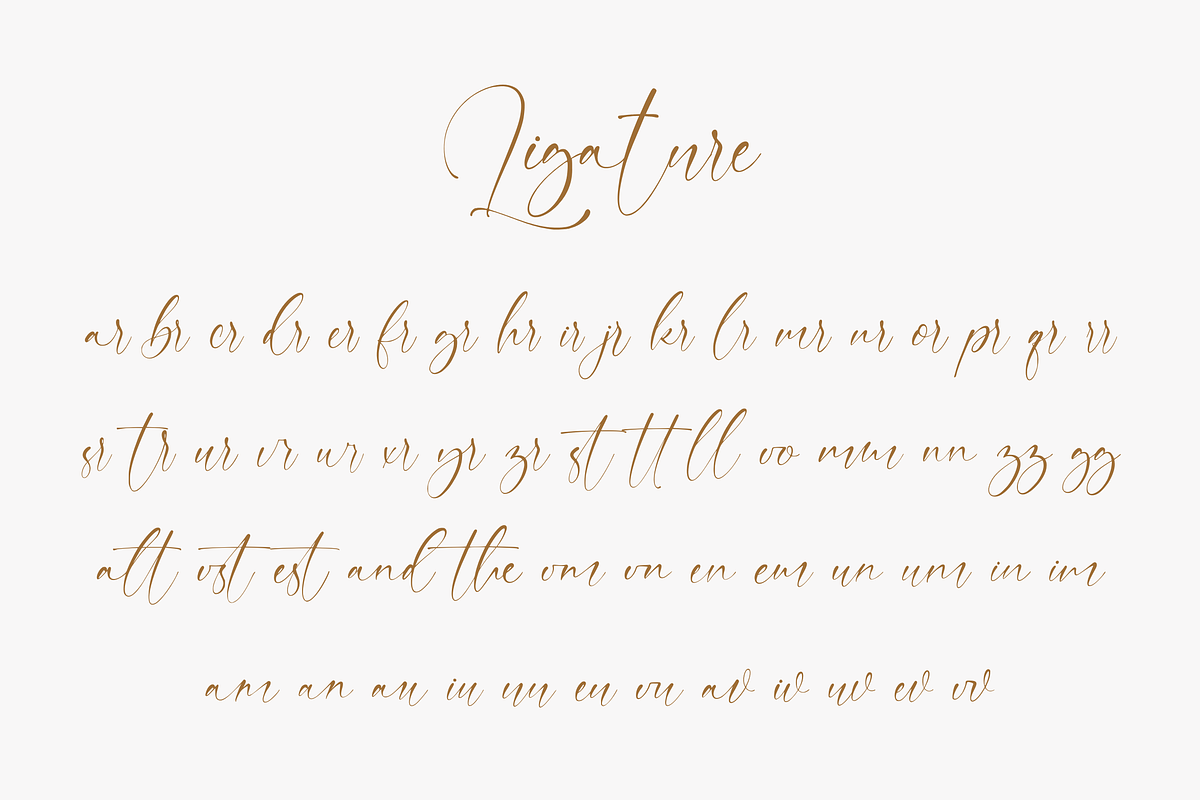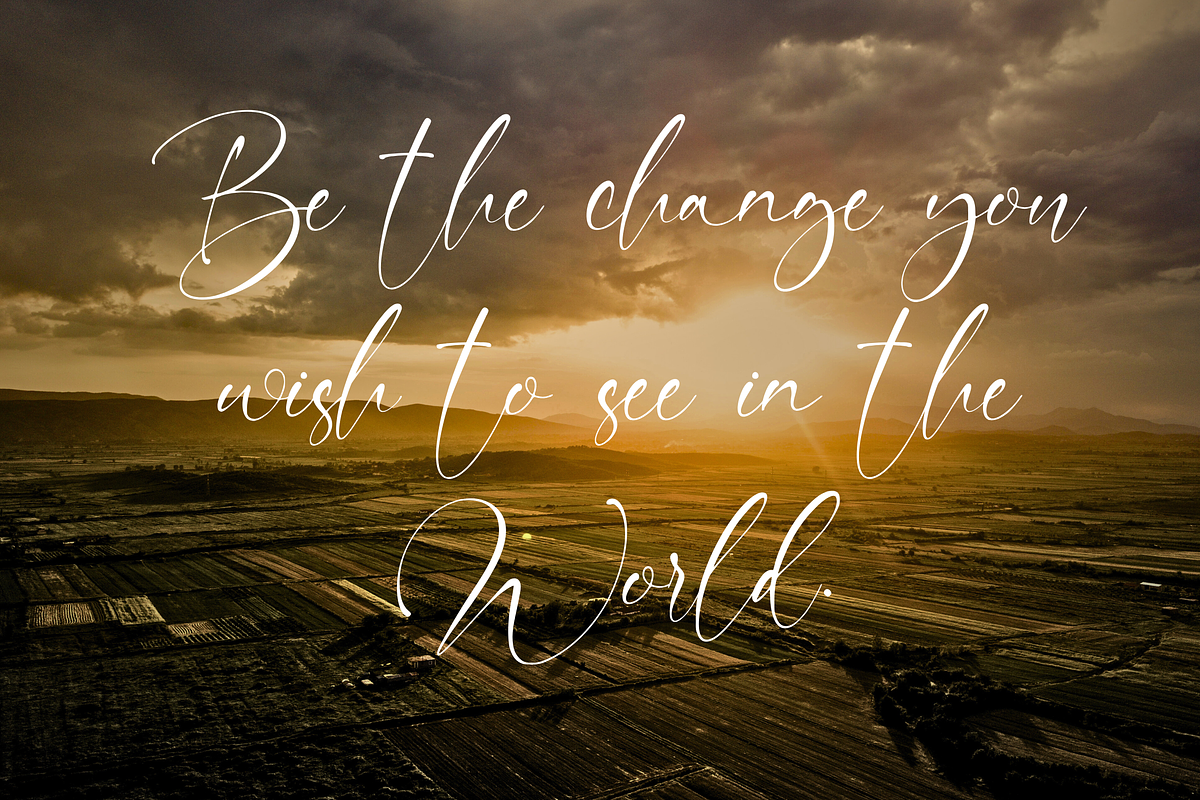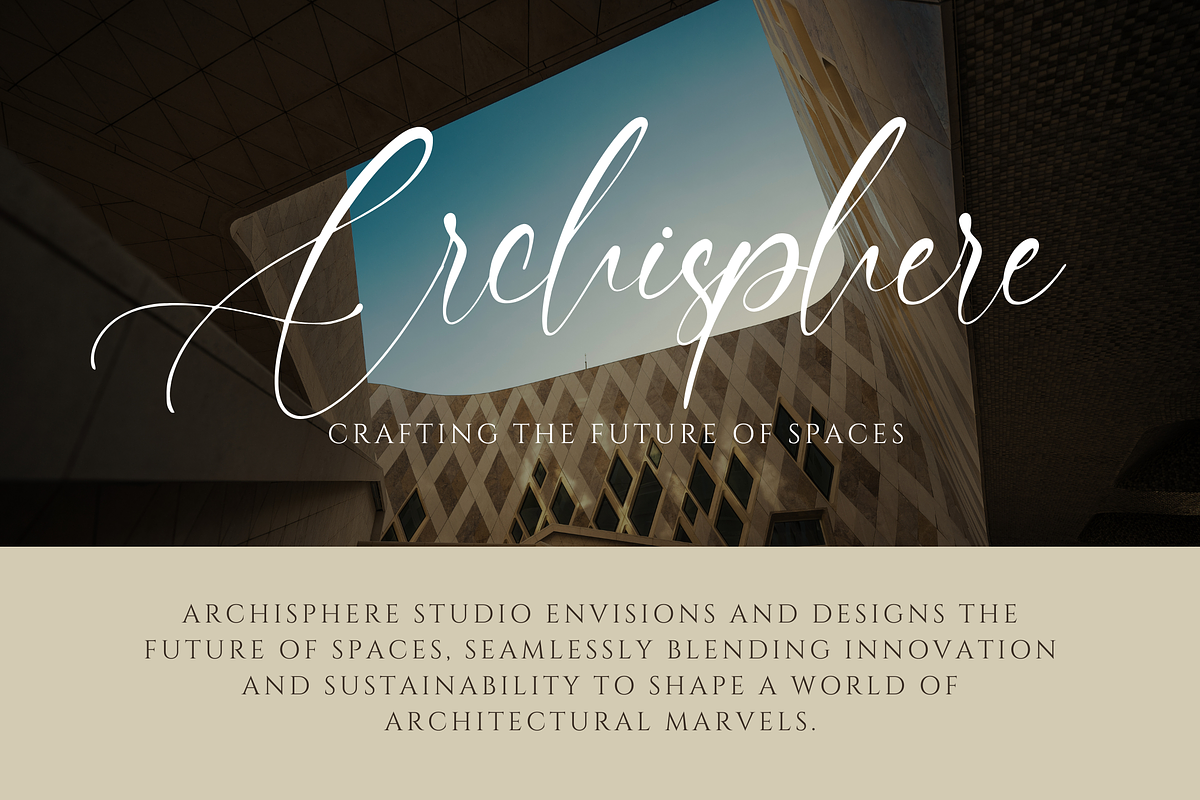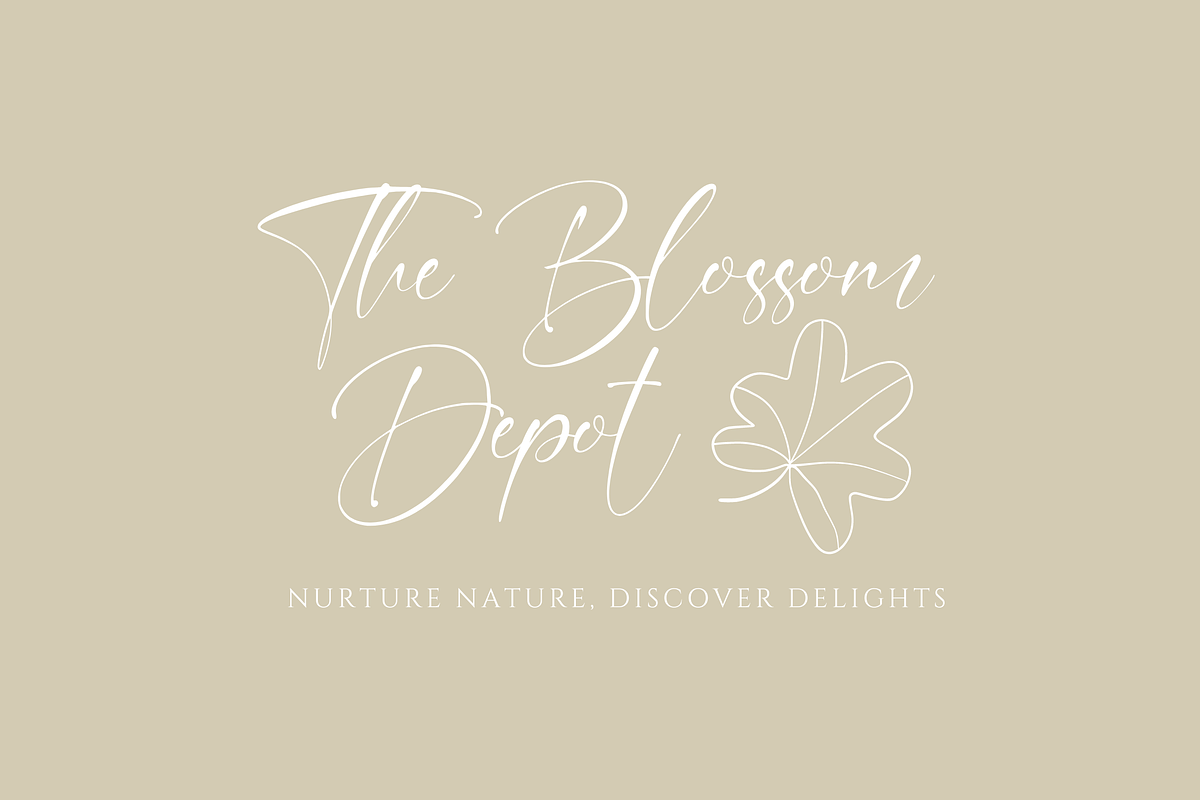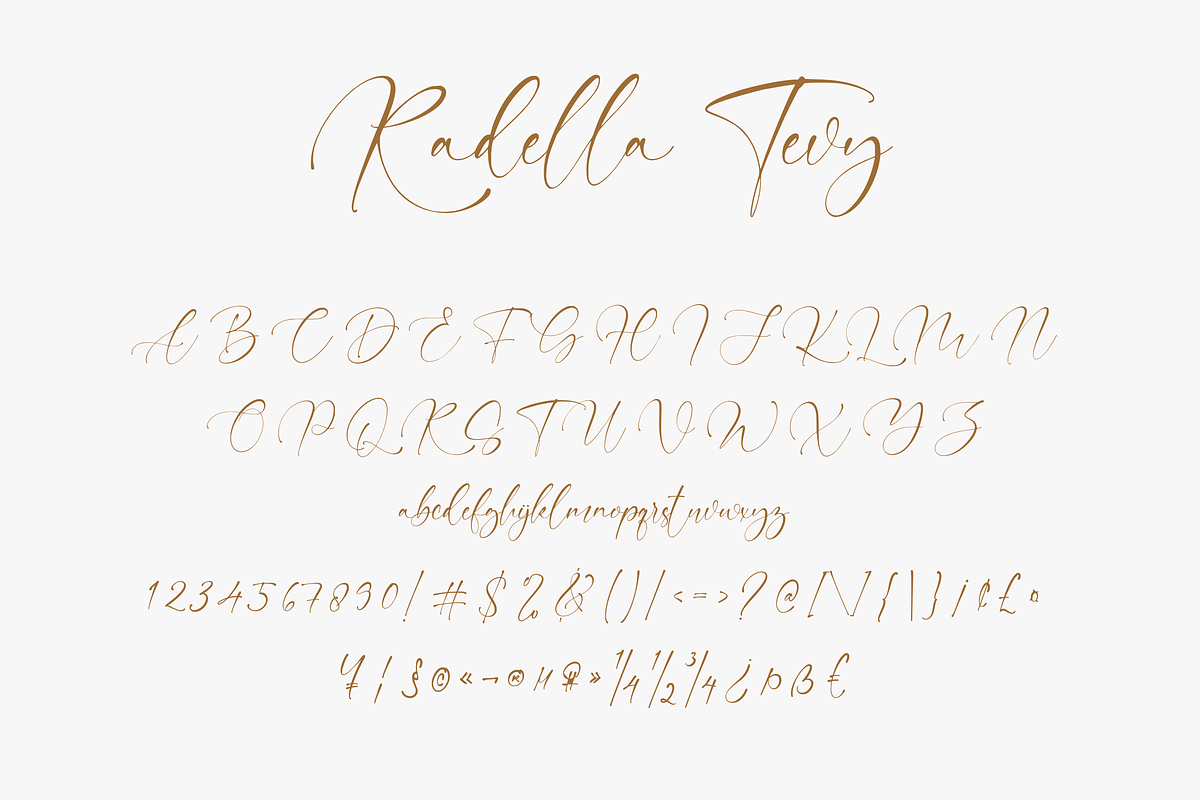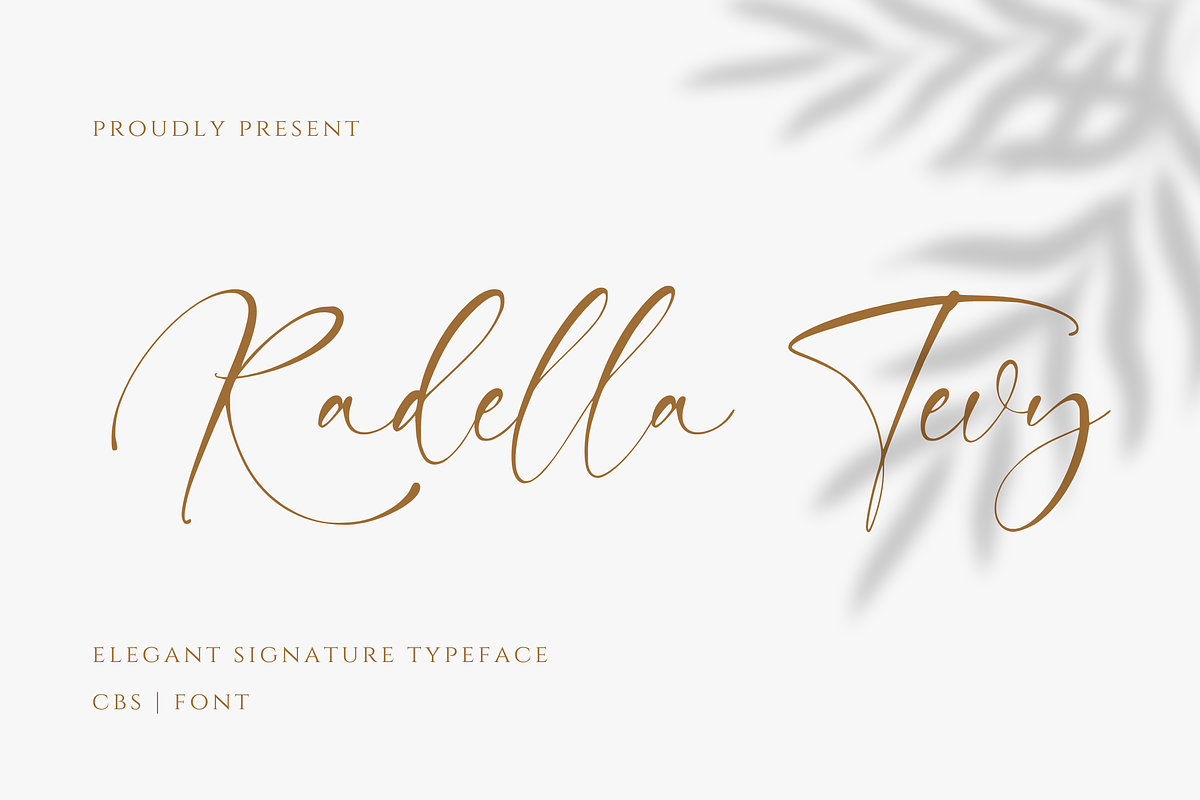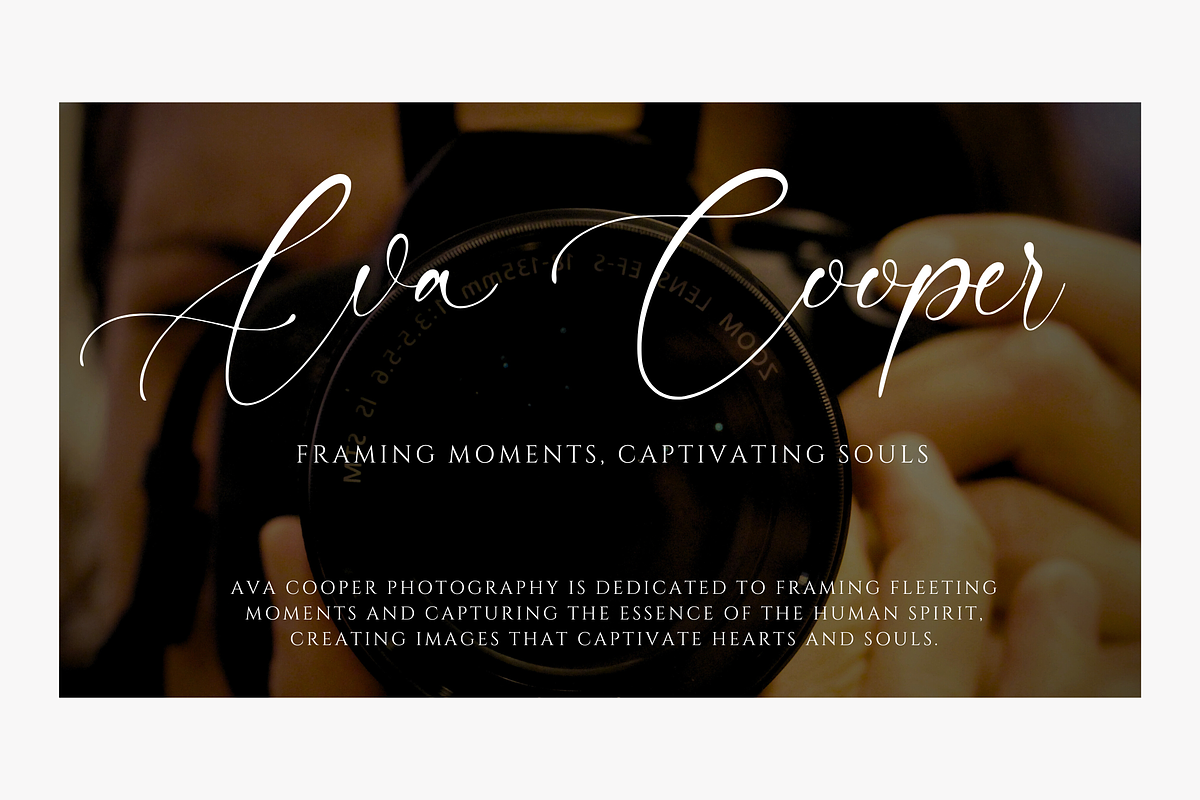
Radella Tevy Signature Handwriting
Elevate your design projects with Radella Tevy, a modern signature handwriting font. This versatile font features a perfect balance of uppercase and lowercase letters, along with numbers, punctuations, and multilingual support. With PUA encoding, Radella Tevy offers seamless compatibility across various design software. Enhance your creations with the elegant and distinctive style of Radella Tevy, perfect for branding, logos, invitations, and more. Get creative and make a statement with this exceptional font.